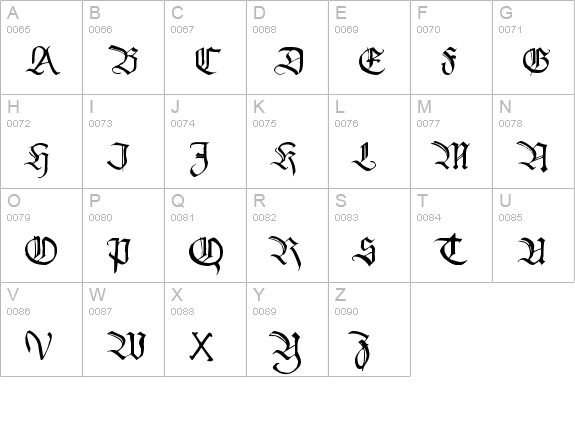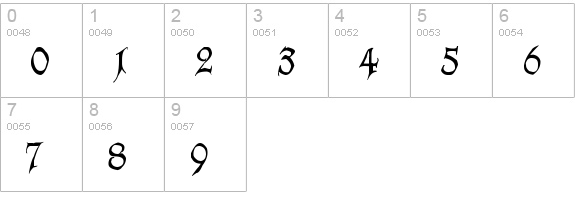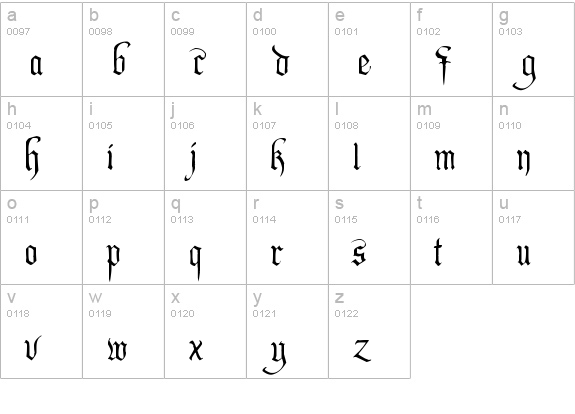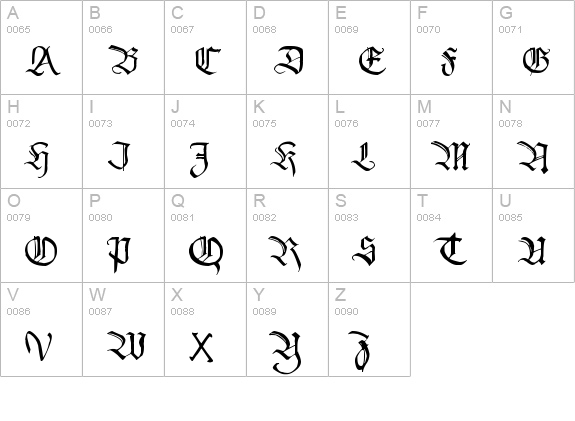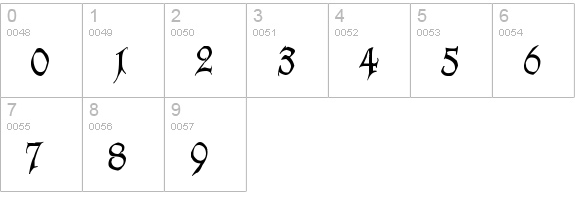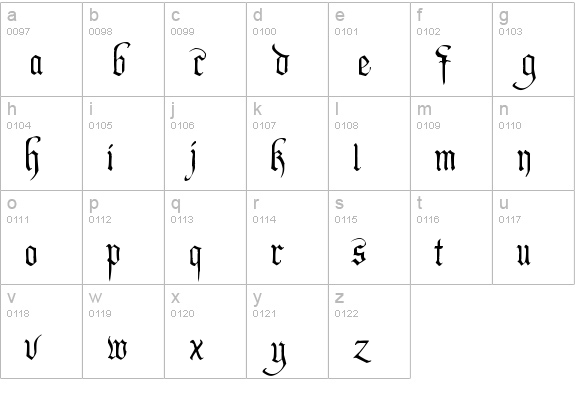
Introducing Oil of Boil font, a captivating and bold typeface that is sure to make a lasting impression. This unique and eye-catching font exudes a sense of edginess and rebelliousness, perfect for projects that require a touch of unconventional creativity. Oil of Boil font features sharp, angular letterforms that are reminiscent of dripping oil, giving it a distinct and mesmerizing aesthetic. Its intricate details and carefully crafted design make it a standout choice for headlines, logos, posters, and other design projects that demand attention. Not only does Oil of Boil font offer exceptional visual appeal, but it also provides versatility and ease of use. With a wide range of glyph characters, including uppercase, lowercase, numerals, and punctuation marks, this font allows you to effortlessly create captivating and dynamic compositions. The best part? Oil of Boil font is available for free! You can easily download this extraordinary font at FontsMarket.com, a trusted source for high-quality fonts. Whether you're a professional designer or a casual enthusiast, this font is a valuable addition to your creative arsenal. Don't miss out on the opportunity to enhance your designs with the captivating and free Oil of Boil font. Download it now at FontsMarket.com and unlock a world of creative possibilities.